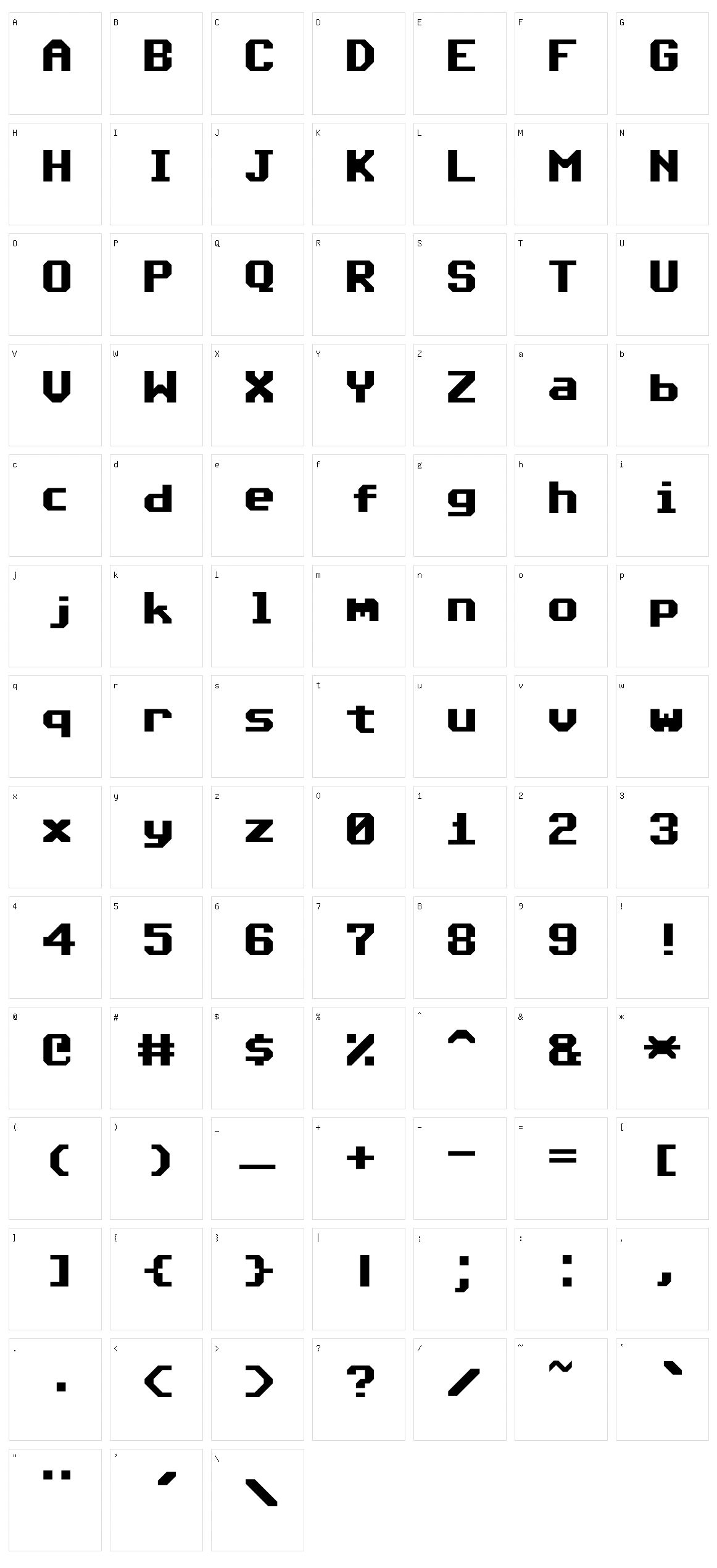
Commodore 64
Designed by: Devin Cook
Category: LCD & Futuristic
The first computer I ever owned was a great little 8-bit wonder called the
Commodore 64. Due to the hours upon hours I spent both playing games and
learning to program (at age 12 in 1986) I gained a love for computers.
Needless to say, I created a true type font that mimics the machine's
character set. Each symbol that was present on the original Commodore 64
computer is available in the font.
I added a number of dingbats when possible. The "3D" pictures of the
Commodore 64 and 1541 Disk Drive were created from photos of my system.
A number of the dingbats are based on other dingbats available on the
Internet.
Anyway, please enjoy.
* Commodore & Amiga logos
* Simple Commodore 64 & 1541 Disk Drive
* Commodore 64 and 1541 Disk Drive simple icons
* Commodore 64 and 1541 Disk Drive (created from ACTUAL photos of my system)
* 5.25" disk in Commodore sleeve and 5.25" without
* "READY." prompt
* Commodore 64 logo
* Mouse
* Pac-Man (facing 4 directions), ghosts (Inky, Blinky, Pinky & Clyde),
pellets, Pac-Man logo
* Logos for Intel Inside, Microsoft, Windows, Internet Explorer
* Common windows (one with a Windows logo), folders, documents, disks ...
* Minimize, Maximize, Normalize, Close icons
* Apple logo, Macintosh logo, Mac-OS, Macintosh boot, Apple disk, Quicktime
* Logos for other companies:
Microtek, AST, Atari, Sun, Franklin, iomega, Xerox, HP, IBM, Fugitsu,
Epson, Acer, Compaq, Intel, 3 Com, NEC, Digital, Seagate, Novell,
Canon, NeXt
Commodore 64 Character Set